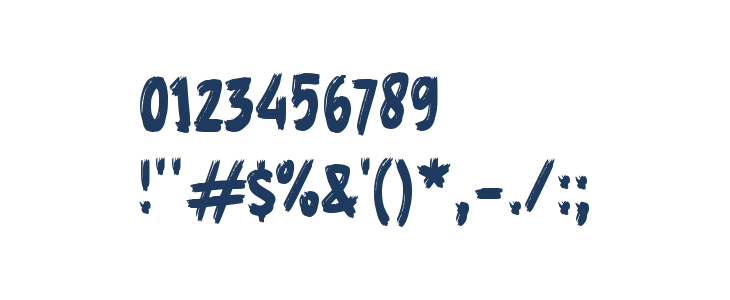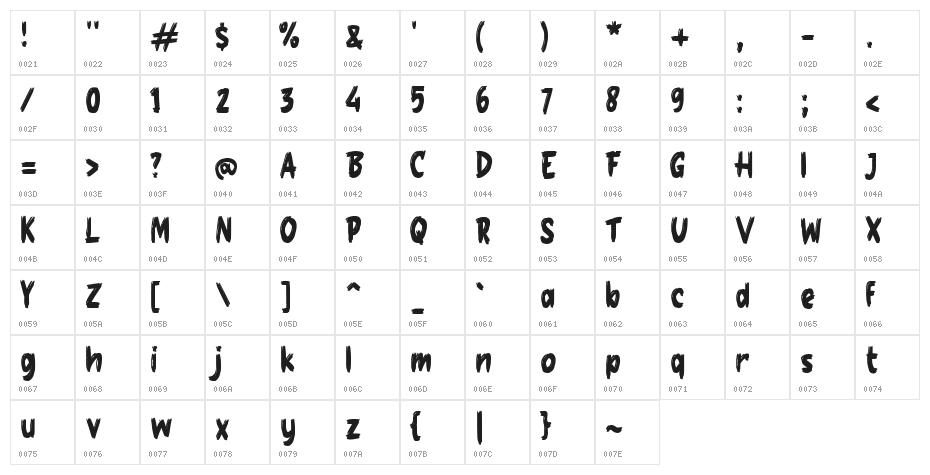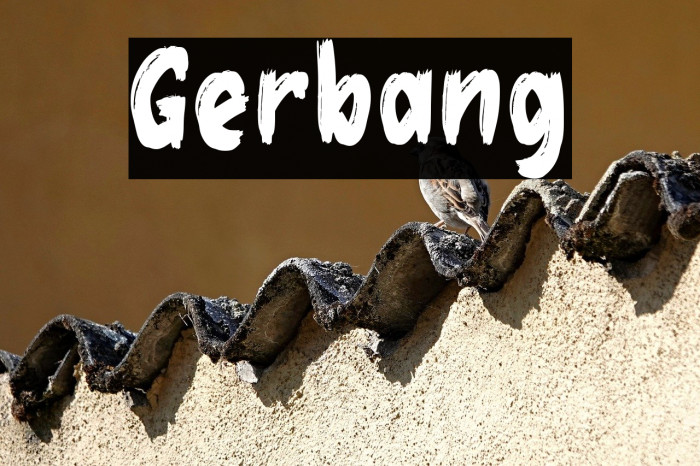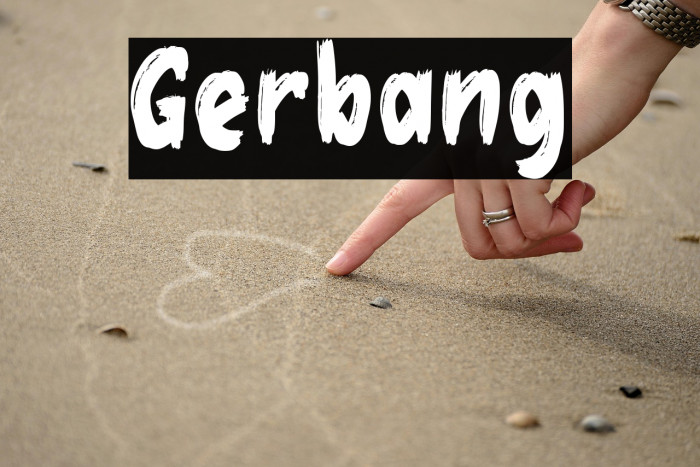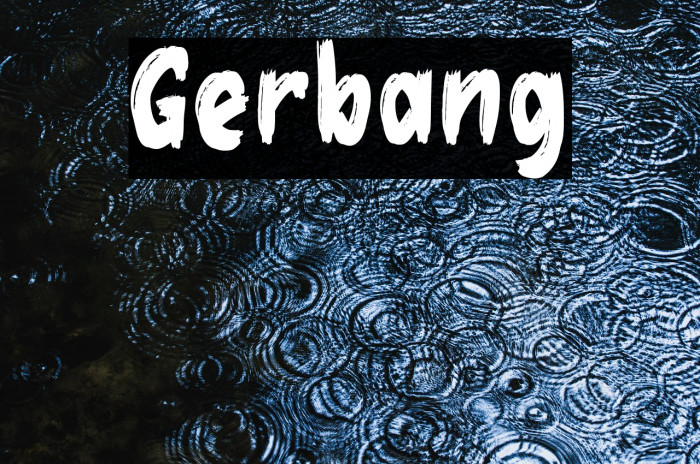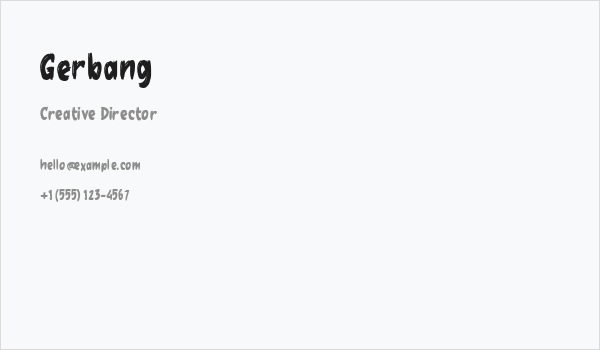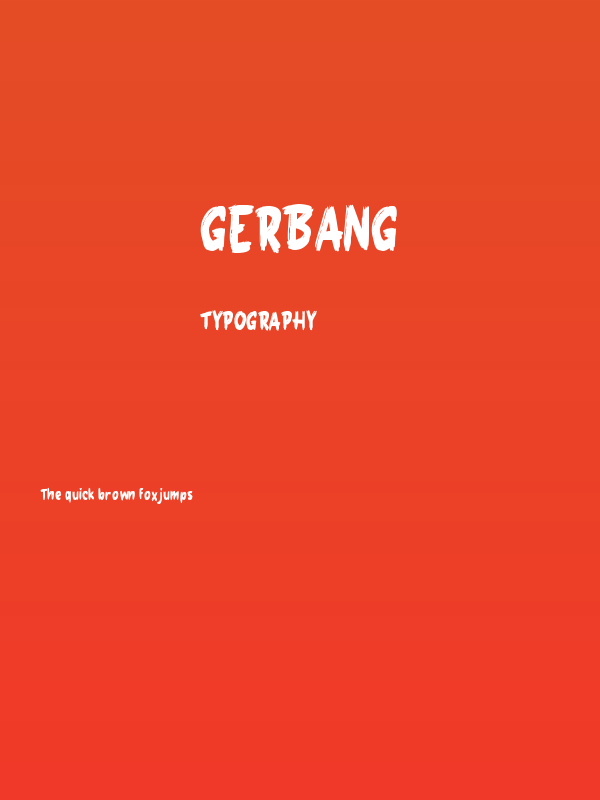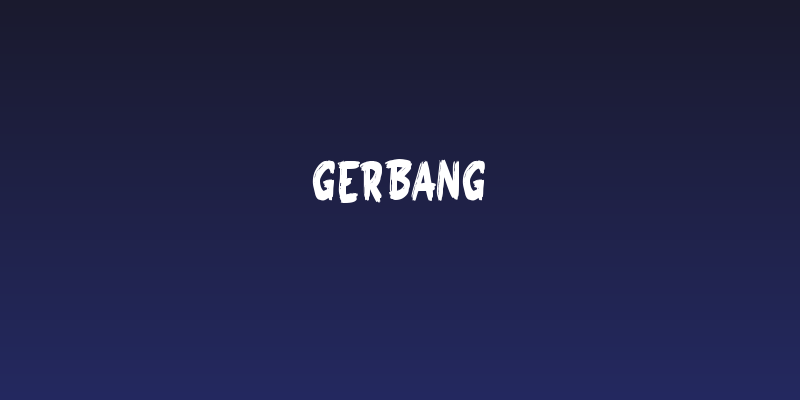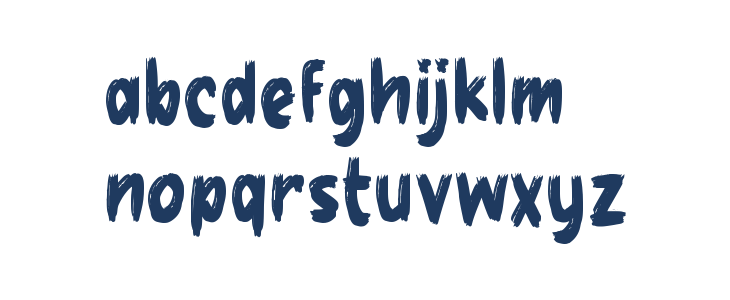
Gerbang Font
Gerbang Description
This font features a bold, brush-like style that exudes energy and dynamism. The strokes are thick and uneven, mimicking the texture of hand-painted letters. Each character has a unique flair, with slightly jagged edges and varying stroke widths that add to its handcrafted appearance. The uppercase and lowercase letters maintain a consistent style, while the numerals and special characters complement the overall aesthetic. This font is ideal for projects that require a bold and artistic touch, such as posters, branding, and creative designs.
| Proposed Projects | Ideal for posters, branding, artistic designs, and any project needing a bold, creative touch. |